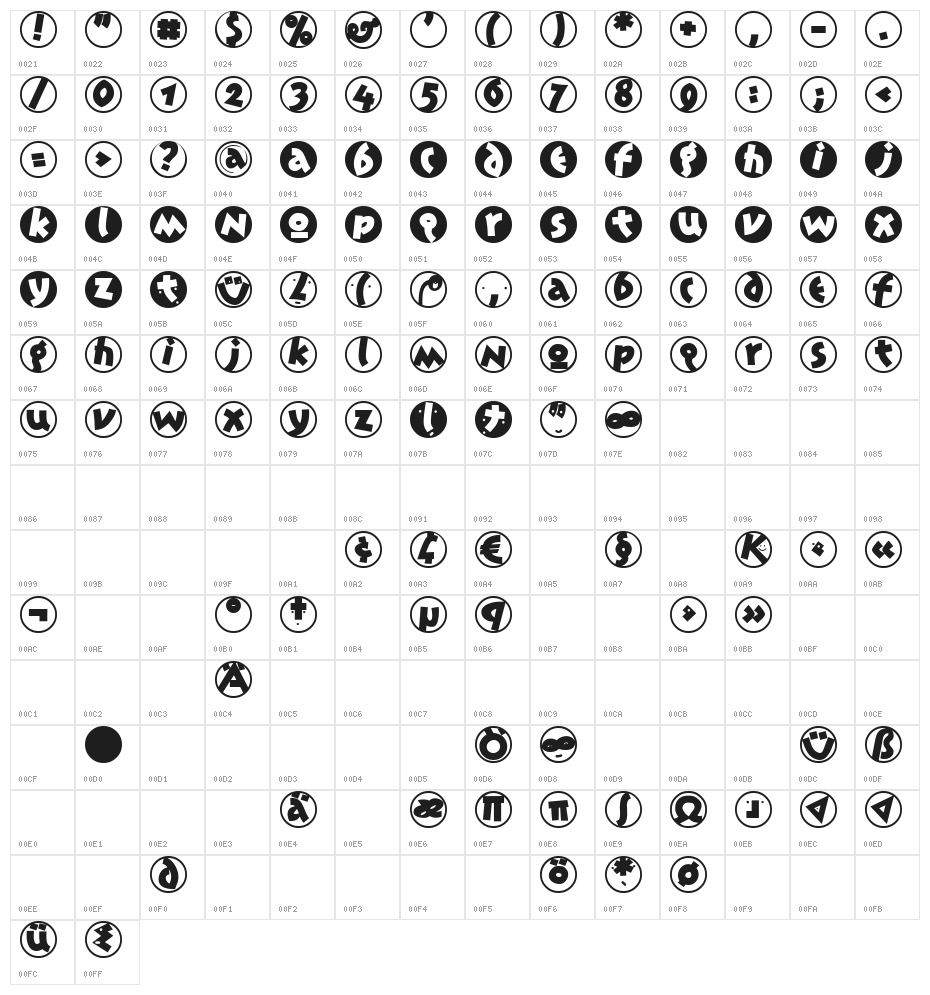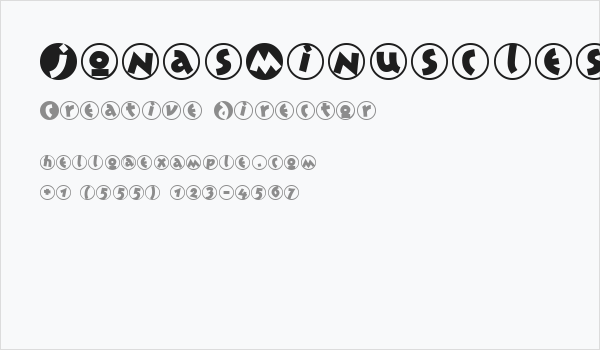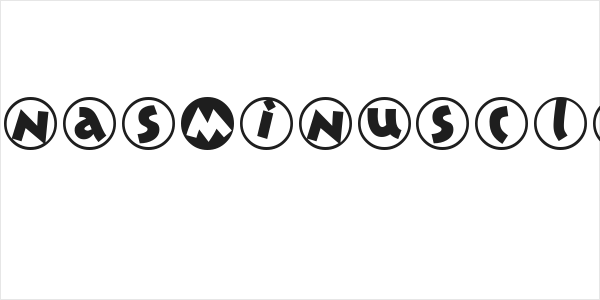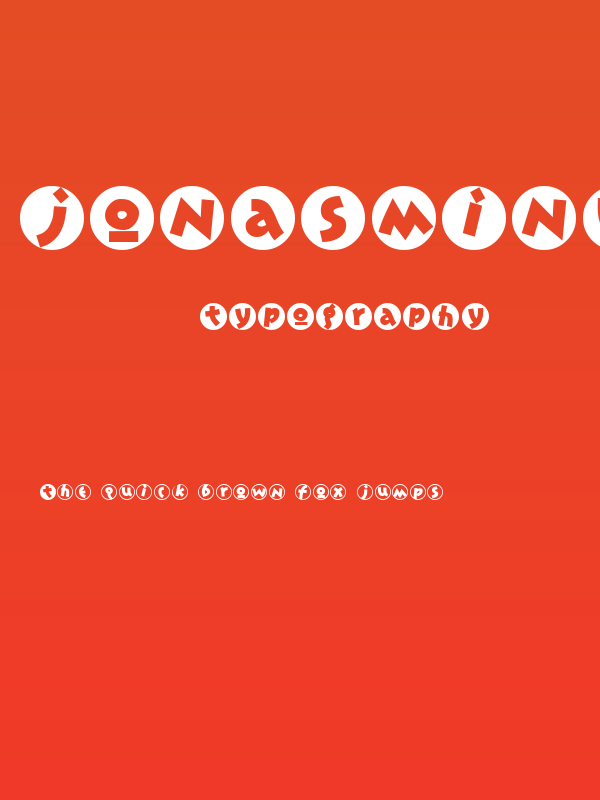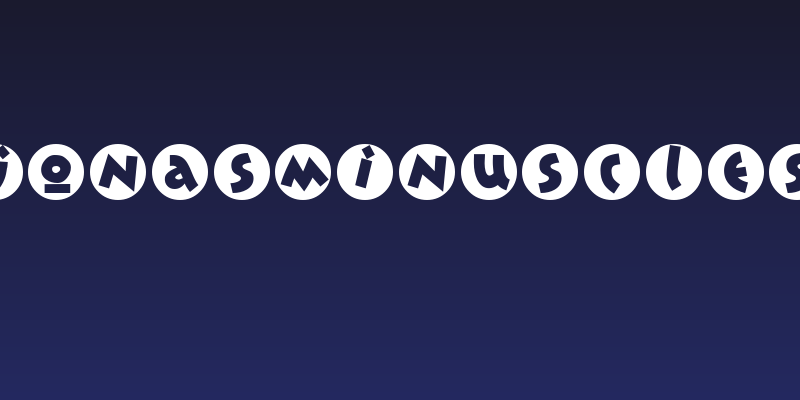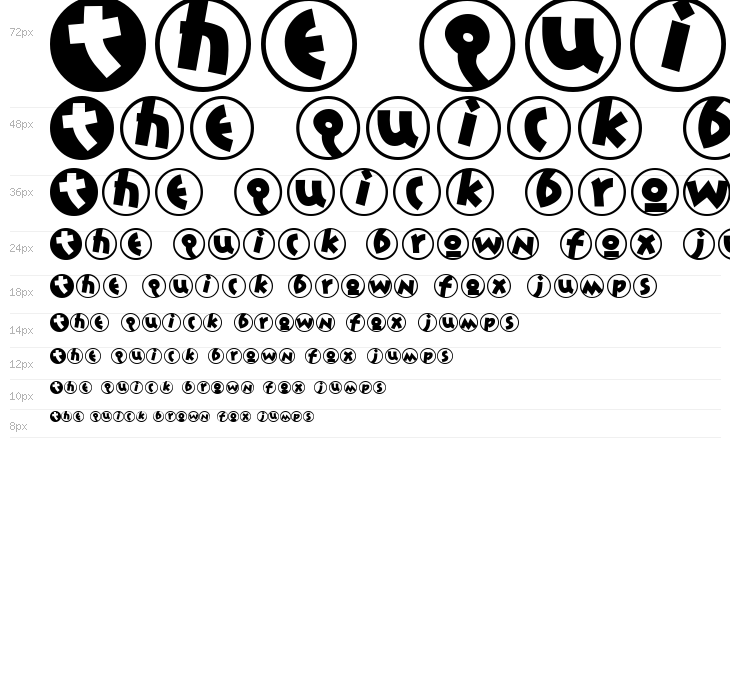
JonasMinuscles Font
| Stile generale | Playful, Whimsical |
| Progetti proposti | Ideal for children's book covers, playful branding, party invitations, and creative posters. |